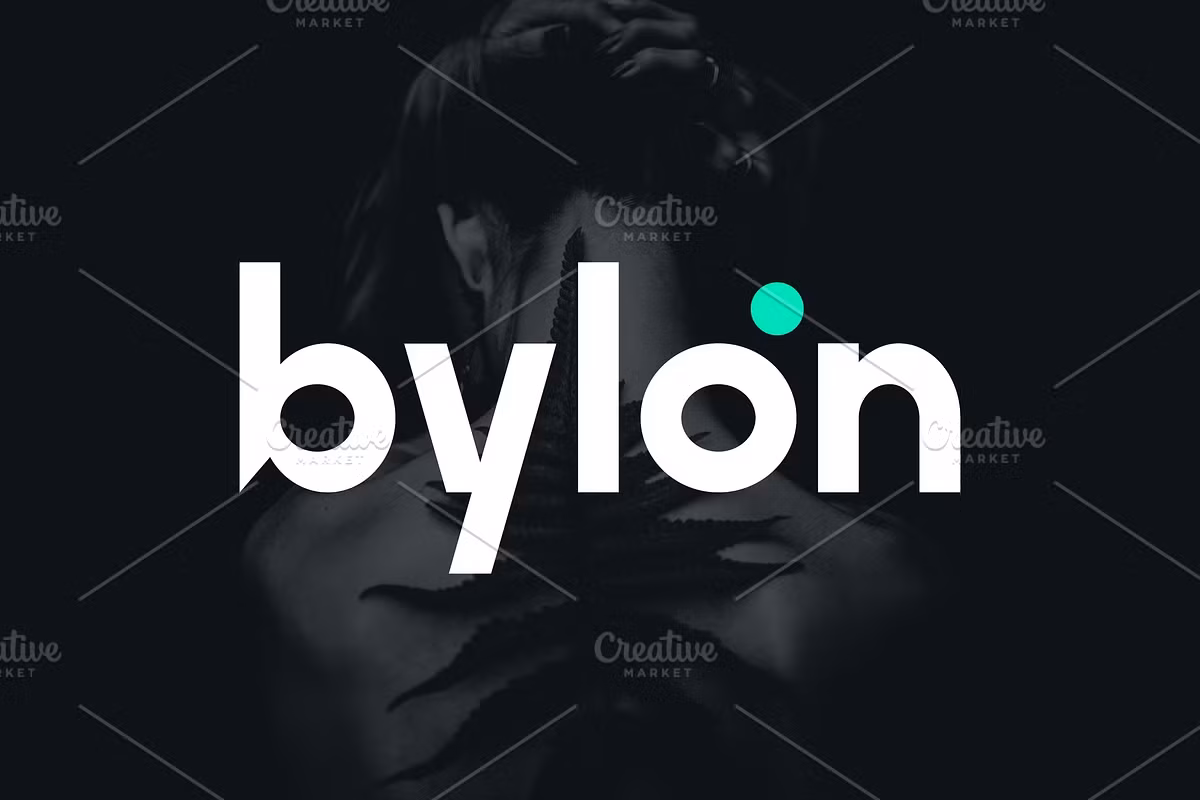
Bylon Sans Font Free Download is a sleek, modern sans-serif typeface designed specifically for creating bold and professional logo designs. With its clean lines, geometric shapes, and minimalist appeal, Bylon Sans is perfect for branding, tech startups, product packaging, website headers, and modern business presentations.
Bylon Sans Font Free Download offers a refined balance between simplicity and strength, making it a go-to choice for designers who want clarity and visual impact. Its versatile structure works beautifully in both uppercase and lowercase, giving you full control over your brand’s tone—whether bold and assertive or clean and understated.
Whether you're building a new visual identity or refreshing an existing one, Bylon Sans delivers a professional, timeless look that adapts easily across print and digital platforms. It pairs well with serif fonts or scripts for contrast in more complex layouts.